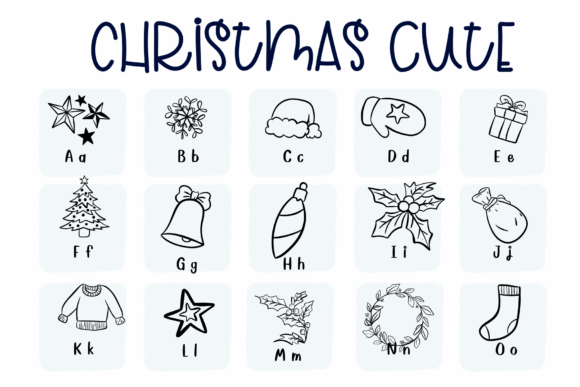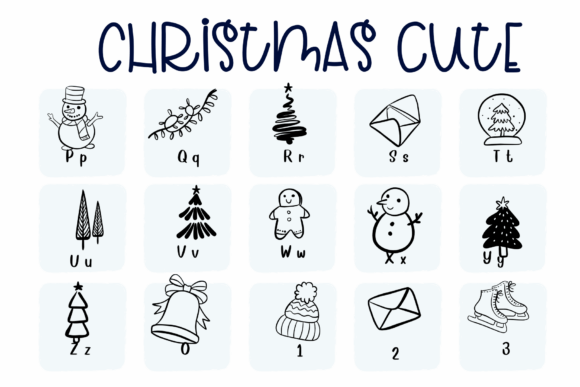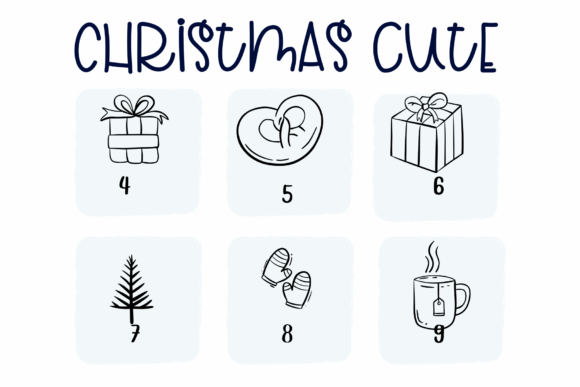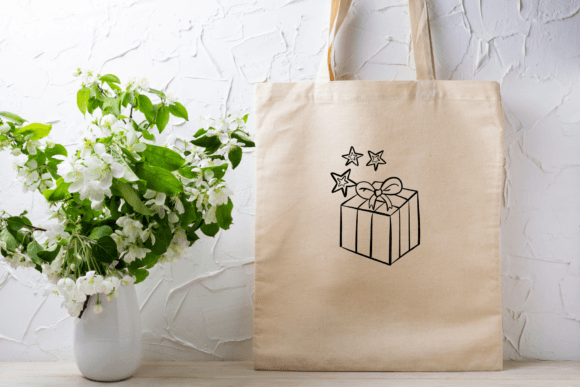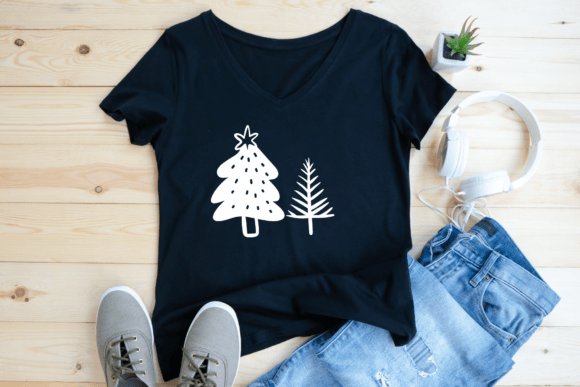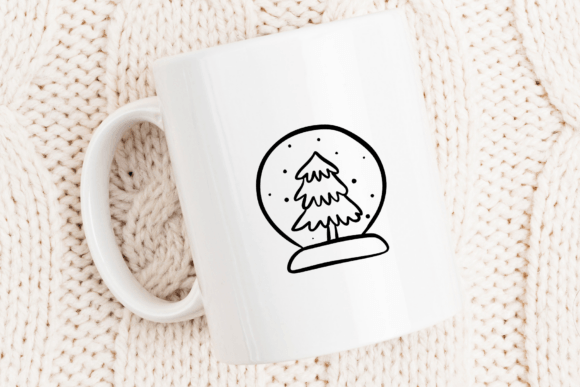
Christmas Cute Font: Add a Festive Touch to Your Creative Projects
Are you looking for a font that can add a festive touch to your creative projects? Look no further than Christmas Cute Font, a dingbats font with a fun and playful theme. This font is perfect for designers, crafters, and DIY enthusiasts who want to create unique and eye-catching projects for the holiday season.
What is Christmas Cute Font?
Christmas Cute Font is a dingbats font that features a range of festive symbols, including Christmas trees, stockings, bells, and more. The font is designed to be fun and playful, making it perfect for creative projects that require a lighthearted touch. With its cute and charming designs, Christmas Cute Font is sure to bring a smile to anyone’s face.
Uses for Christmas Cute Font
Christmas Cute Font is a versatile font that can be used for a wide range of creative projects. Here are some ideas to get you started:
- Wedding Invitations: Add a festive touch to your wedding invitations with Christmas Cute Font. You can use the font to create custom illustrations, borders, and other design elements.
- DIY Crafts: Use Christmas Cute Font to create custom labels, tags, and other embellishments for your DIY crafts.
- Decorations: Create custom signs, banners, and other decorations for your home or office using Christmas Cute Font.
- Logos: Use Christmas Cute Font to create custom logos for your business or brand.
- Social Media Graphics: Create eye-catching social media graphics using Christmas Cute Font.
Benefits of Using Christmas Cute Font
There are many benefits to using Christmas Cute Font for your creative projects. Here are a few:
- Unique and Eye-Catching: Christmas Cute Font is a unique and eye-catching font that is sure to stand out from the crowd.
- Festive Theme: The font features a festive theme that is perfect for the holiday season.
- Versatile: Christmas Cute Font can be used for a wide range of creative projects.
Tips for Using Christmas Cute Font
Here are a few tips for using Christmas Cute Font:
- Use it Sparingly: Use Christmas Cute Font sparingly to avoid overwhelming your design.
- Combine with Other Fonts: Combine Christmas Cute Font with other fonts to create a unique and interesting design.
Christmas Cute Font is a fun and playful font that is perfect for designers, crafters, and DIY enthusiasts who want to add a festive touch to their creative projects. With its cute and charming designs, Christmas Cute Font is sure to bring a smile to anyone’s face. Whether you’re creating wedding invitations, DIY crafts, or social media graphics, Christmas Cute Font is a great choice.
Overall, Christmas Cute Font is a great choice for anyone looking to add a festive touch to their creative projects. With its cute and charming designs, this font is sure to bring a smile to anyone’s face.